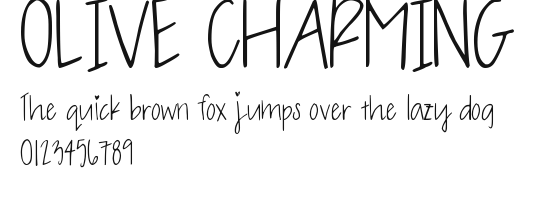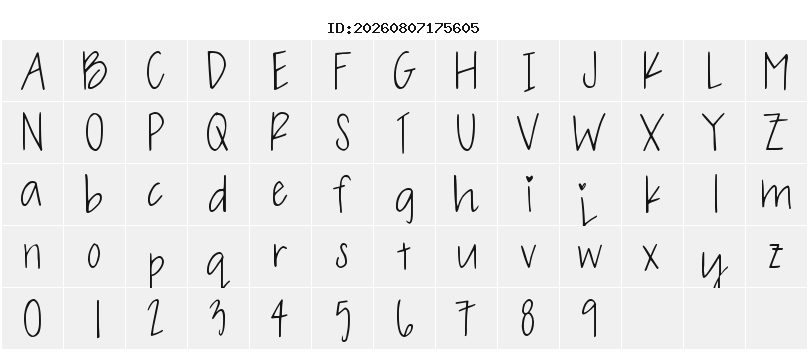
OLIVE CHARMING Preview
• Font Name: OLIVE CHARMING
About OLIVE CHARMING.ttf
OLIVE CHARMING.ttf is a modern, elegant sans-serif font designed for ultimate readability and visual harmony. Perfect for branding, headlines, web design, and print materials.